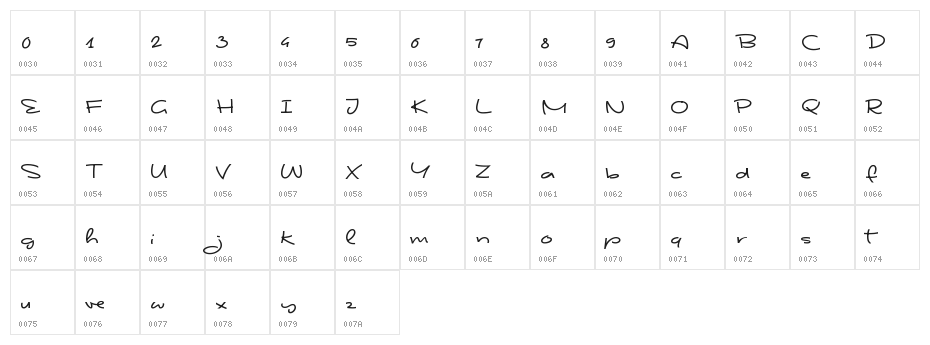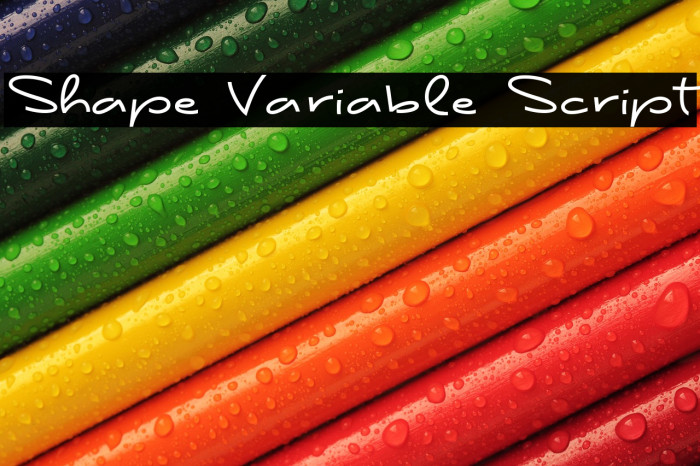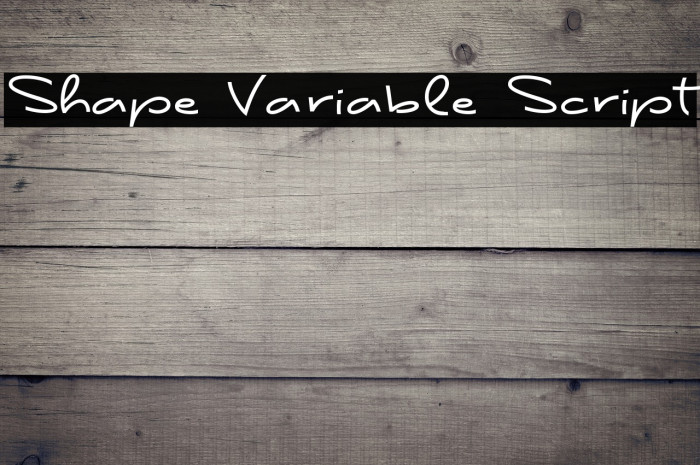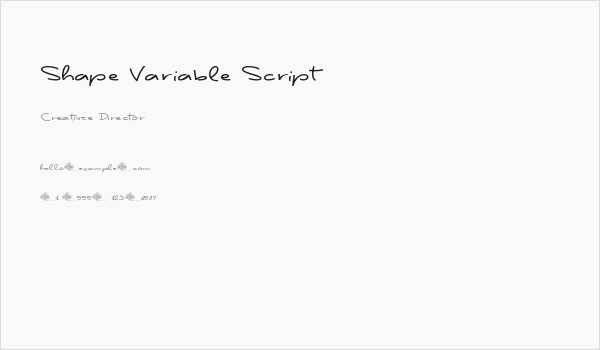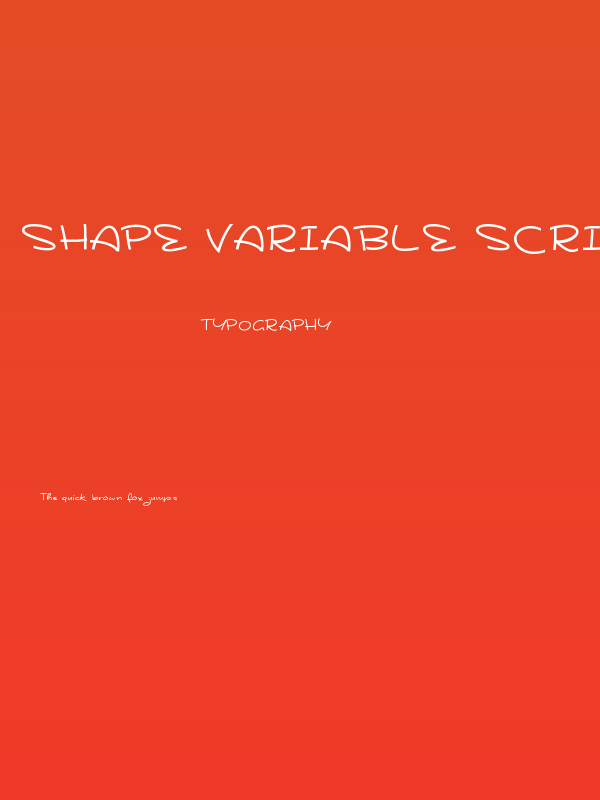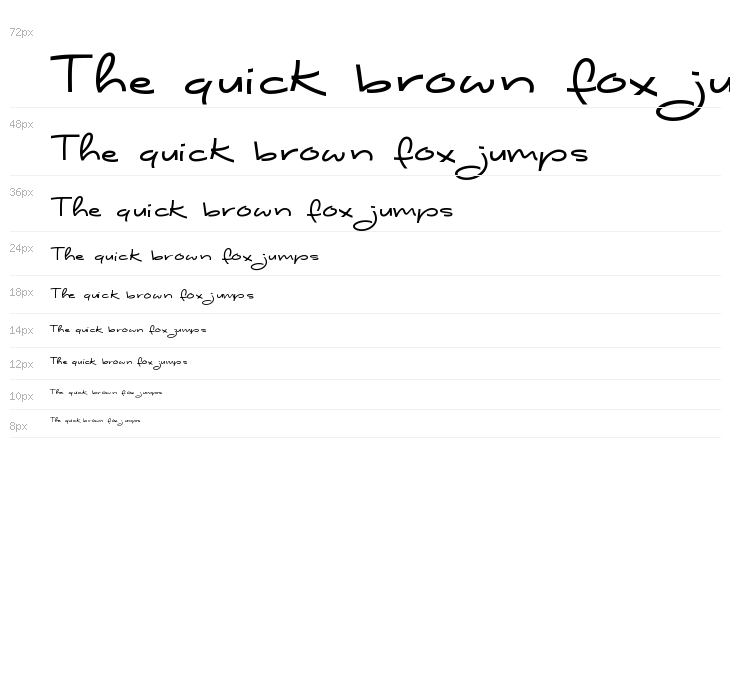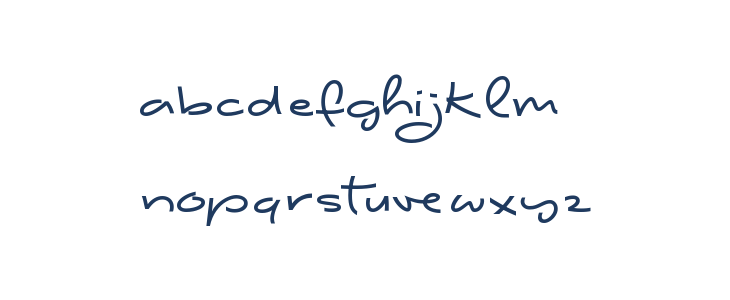
Shape Variable Script Font
Shape Variable Script Description
This font features a playful and dynamic script style with a handwritten appearance. The characters are fluid and slightly irregular, giving it a casual and approachable feel. The uppercase letters are bold and slightly slanted, while the lowercase letters maintain a consistent flow with occasional loops and curls, adding to its charm. The numerals are well-integrated, matching the overall style with a touch of whimsy. This font is versatile, suitable for projects that require a personal touch or a creative flair. Its unique character shapes make it stand out, perfect for capturing attention.
| Overall Style | Casual, Playful |
| Use Case | Logos, Invitations, Creative projects |
| Proposed Projects | Ideal for greeting cards, invitations, personal branding, and creative projects. |